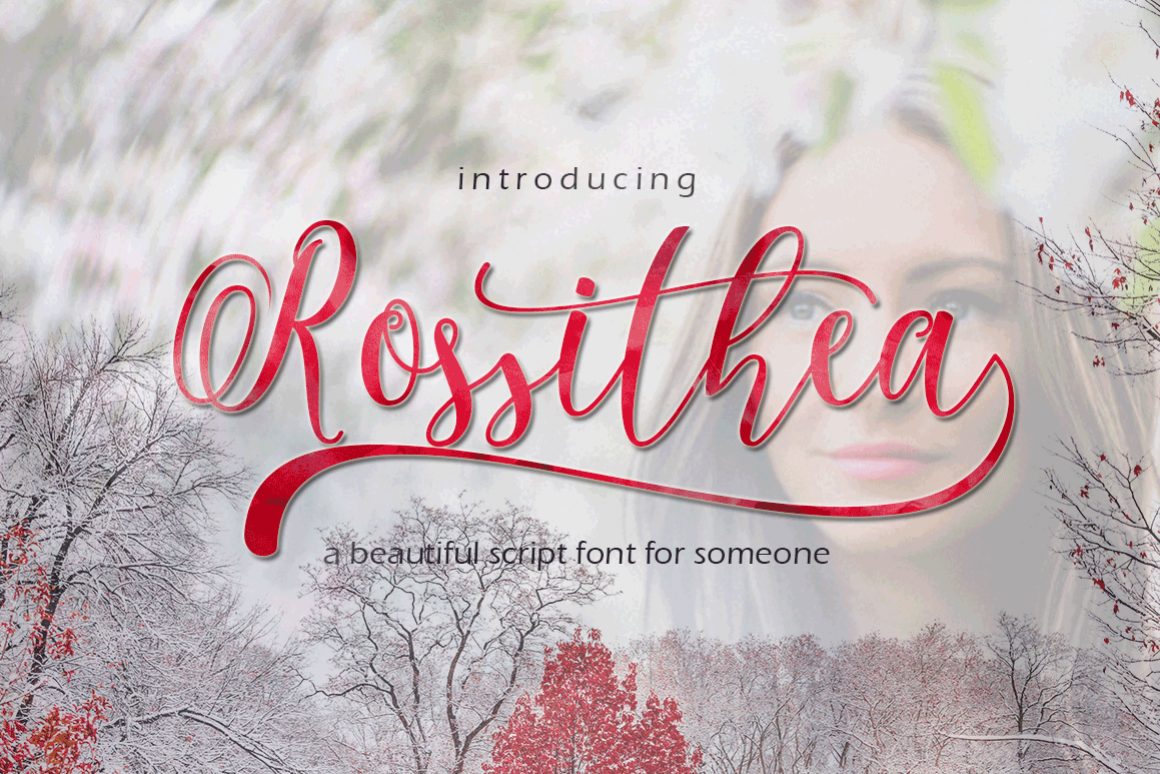
Rossithea
INTRODUCING
Rossithea is a font that made the hand by having the character up and down like a dancer. Rossithea has a very unique style of calligraphy, it is very suitable for use in the work of modern design.
The Features of this fonts is:
Standart ligatures,
Discretionary ligatures,
Stylistic Alternates,
Stylistic sets,
Private Unicode Area.
Languages supported: Breton, Catalan, Czech, Danish, Estonian,French, German, Hungarian, Icelandic, Italian, Romanian, Scottish Gaelic, Slovak, Latvian, Lithuanian, Norwegian, English, Finnish, Polish, Portuguese, Slovenian, Spanish, Swedish, Turkish, Welsh. Basically, all european languages that are based on latin alphabetCan be used for various purposes.such as headings, logos, wedding invitation, t-shirt, letterhead, lable, news, posters, badges etc.